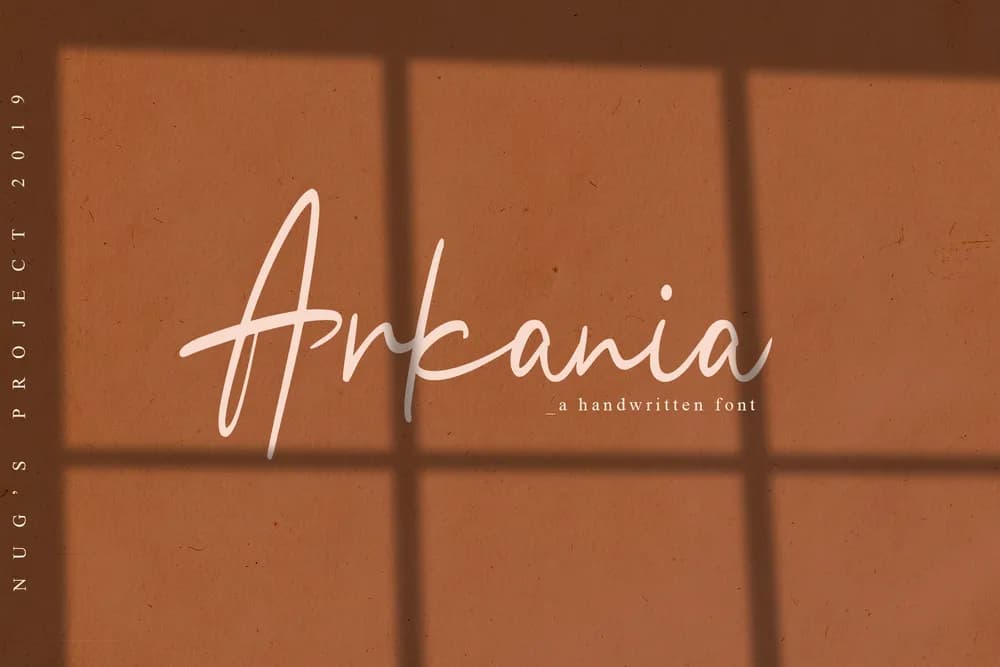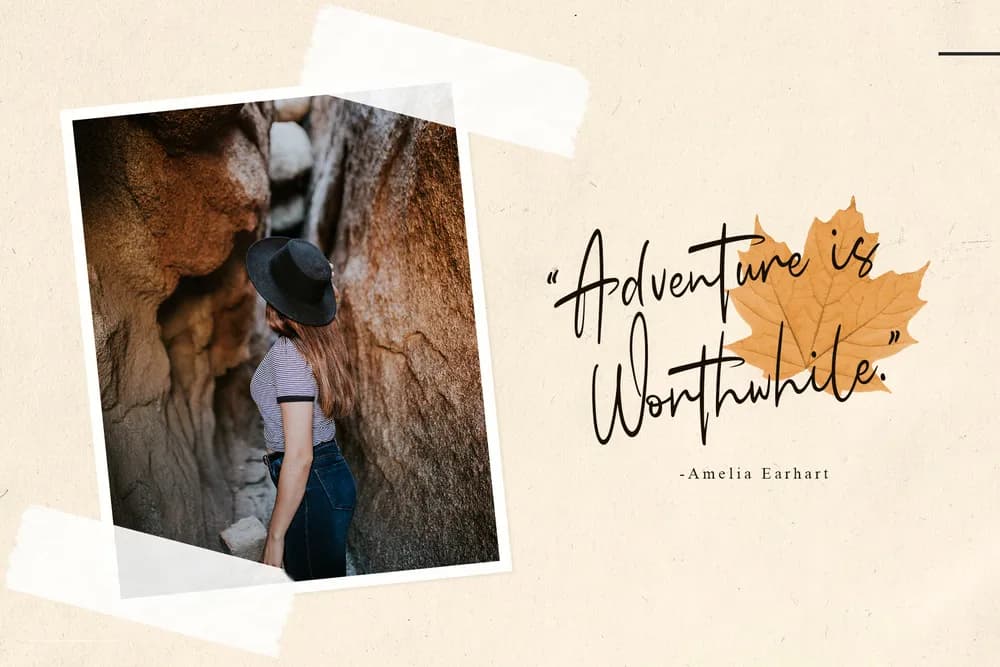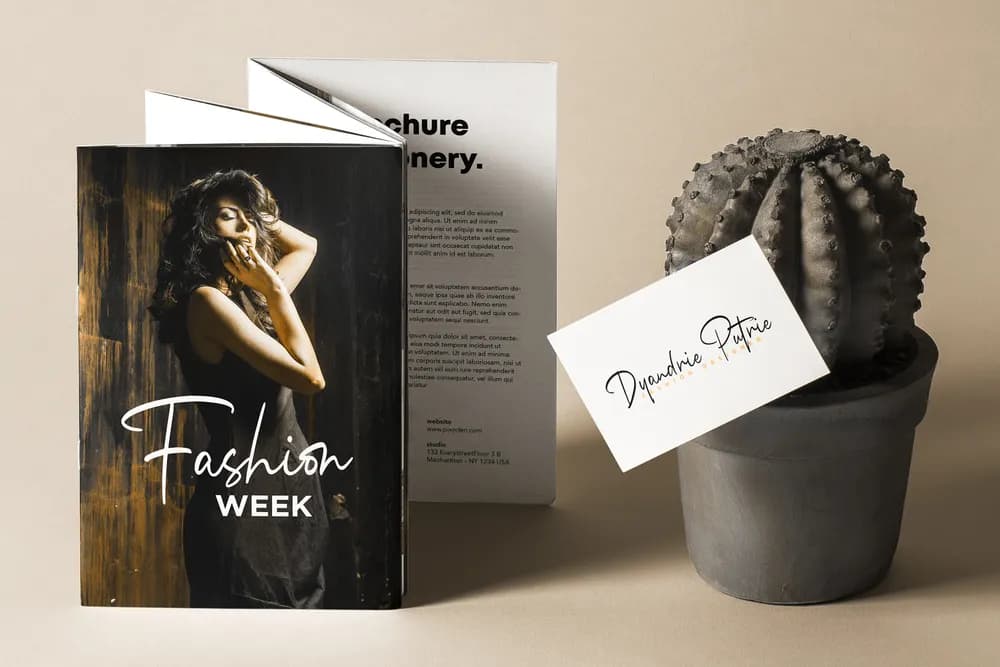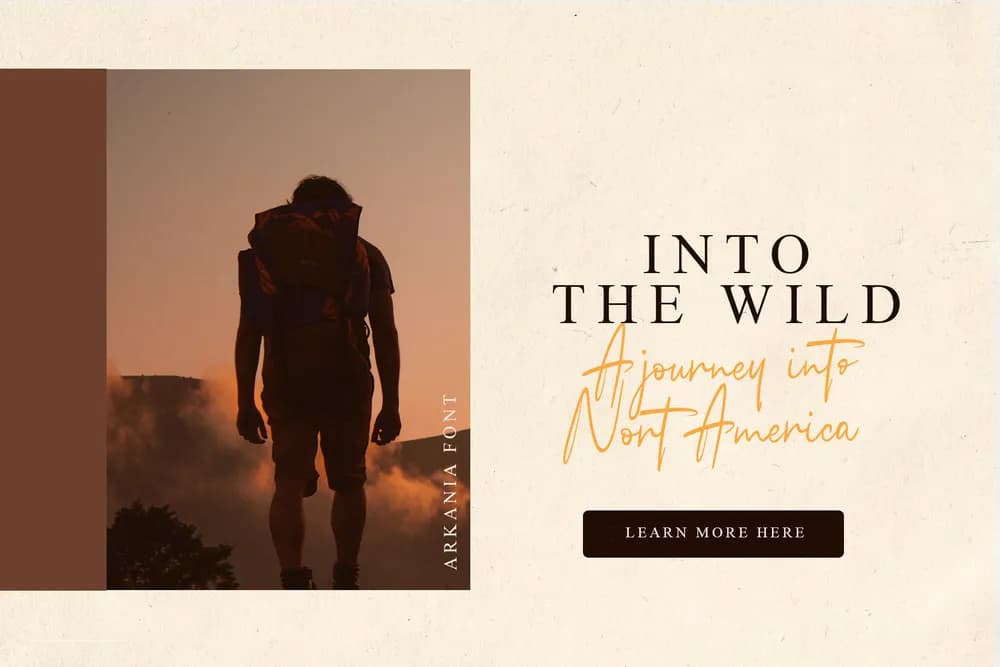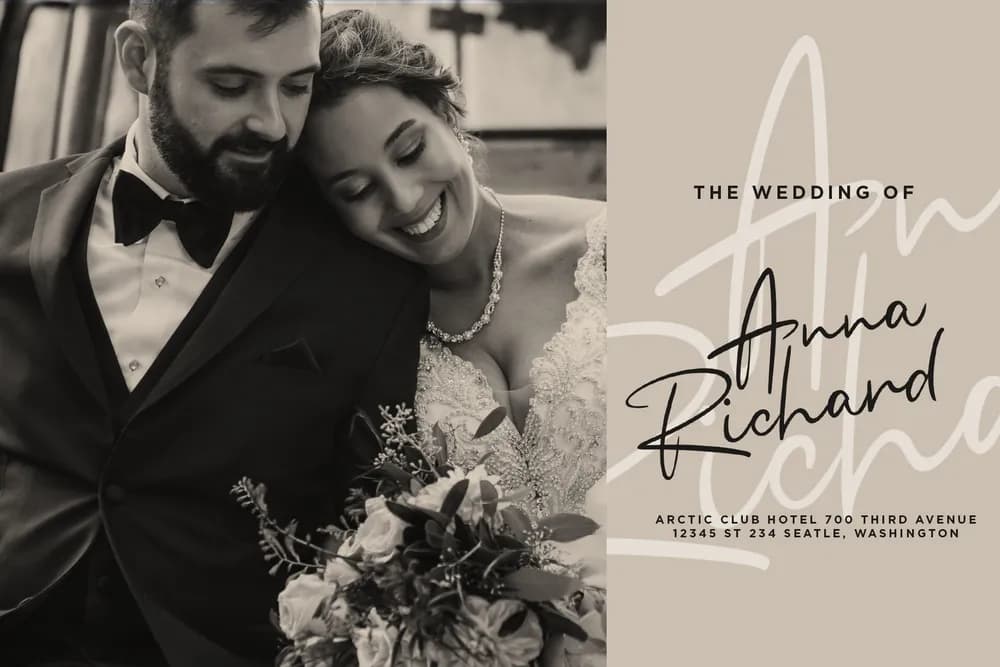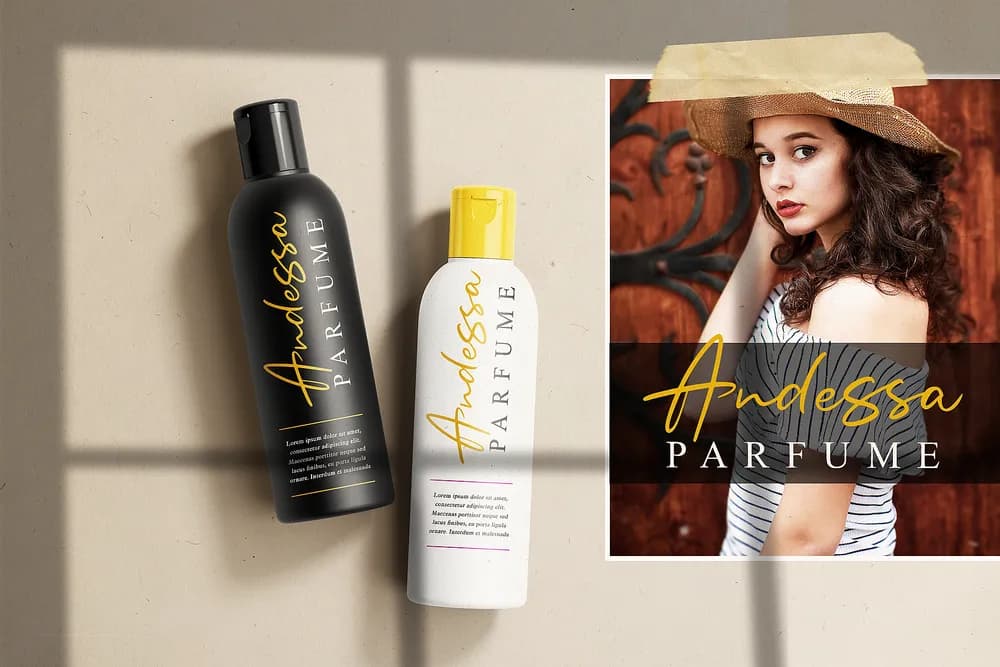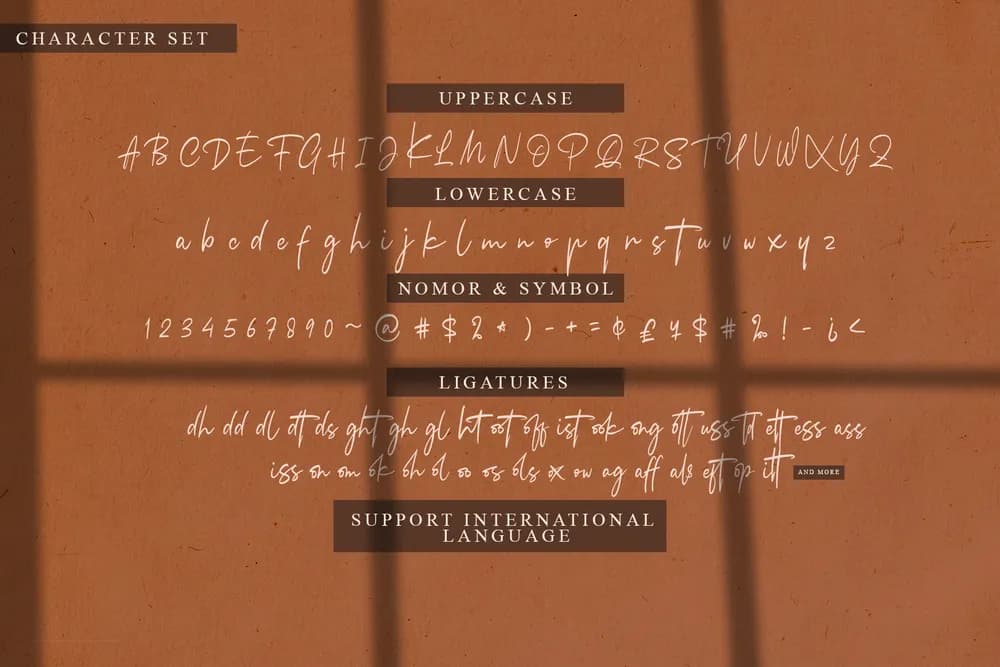
The Arkania is a striking handwritten font. It has natural curves and is perfect for adding a personal touch to your branding, watermarks, logos, and much more! What you get: Arkania OTF, TTF, WOFF Arkania Slant OTF, TTF, WOFF Features: Multilingual Support Regular and Slant Version Number & Punctuation. 280 Ligatures Easy to install